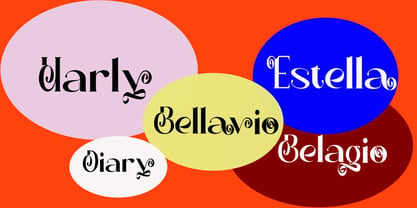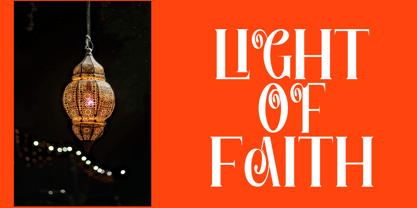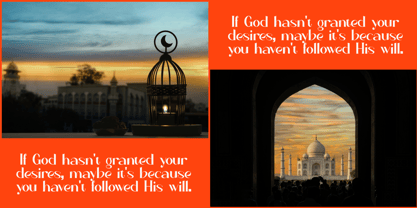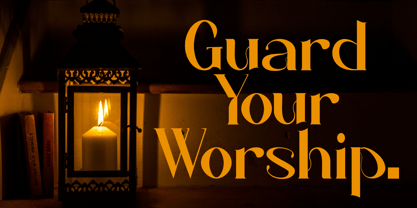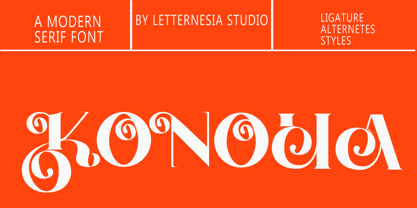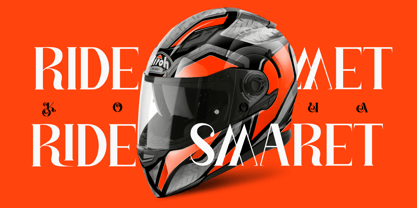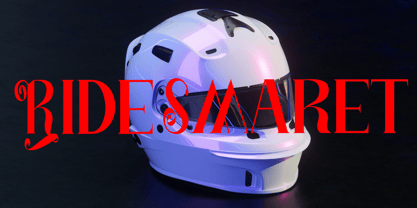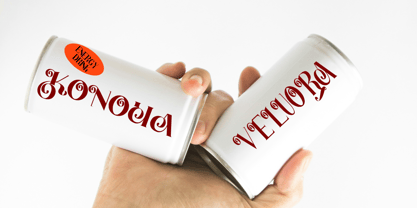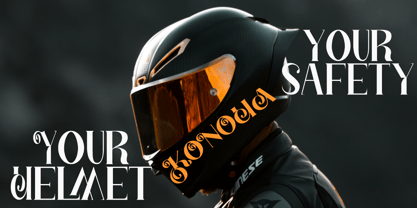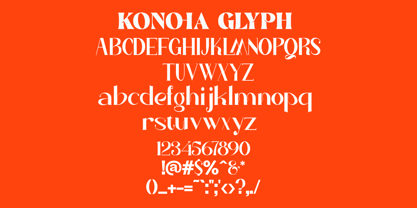
Lskonoha
by Letternesia studio
The Lskonoha Font Family was designed by Ta Siyo and published by Letternesia studio. Lskonoha contains 2 styles and family package options. More about this family
LSKONOHA is a modern display font that combines bold character with a clean, contemporary style. Featuring strong letterforms, balanced proportions, and eye-catching details, this font is designed to create typography that is striking, professional, and memorable.
KONOHA is perfect for a wide range of creative projects, including logos, branding, posters, headlines, product packaging, apparel, YouTube thumbnails, social media graphics, book covers, merchandise, and many other design applications.
Designed with versatility in mind, KONOHA brings a modern, dynamic, and premium look to every project. Its distinctive style pairs effortlessly with a variety of design concepts, from minimalist and urban aesthetics to bold, creative visuals, making it an excellent choice for designers seeking impactful typography.